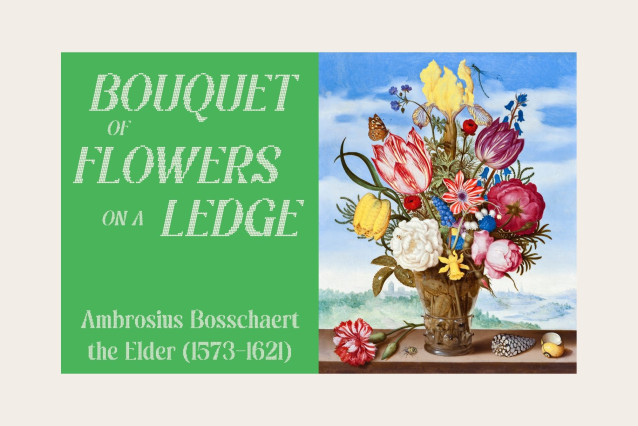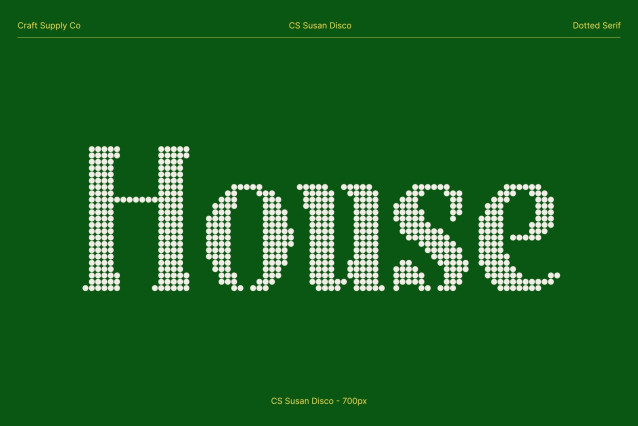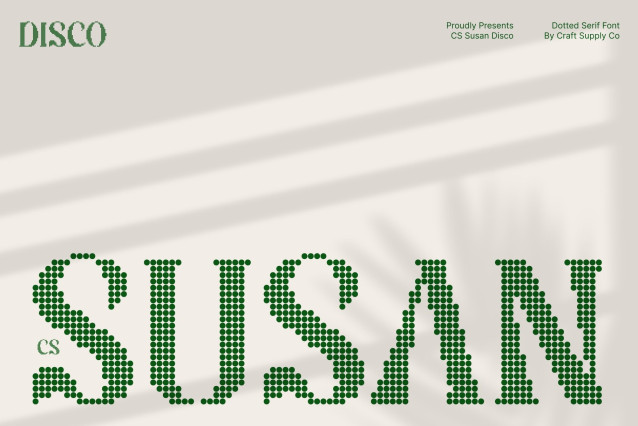
CS Susan Disco – Stylistic Serif with Timeless Artistic Character
Elegant Serif with Disco Sparkle
This font transforms a refined stylistic serif into a radiant dotted display, inspired by shimmering disco lights. The elegant serif structure remains graceful and sophisticated, while the dotted texture introduces a lively, celebratory glow that brings instant visual excitement.
Artistic Ligatures with Playful Rhythm
Known for its distinctive ligatures, this font gains an extra layer of personality through sparkling dot details. The flowing connections feel even more expressive, turning words into artistic compositions that balance creativity with readability. The result is typography that feels both refined and joyfully dynamic.
Timeless Beauty with Cheerful Energy
The carefully balanced proportions and elegant curves maintain a premium, high-end feel. With the disco styling, the font becomes brighter and more engaging perfect for designs that want to feel luxurious yet festive, classic yet modern.